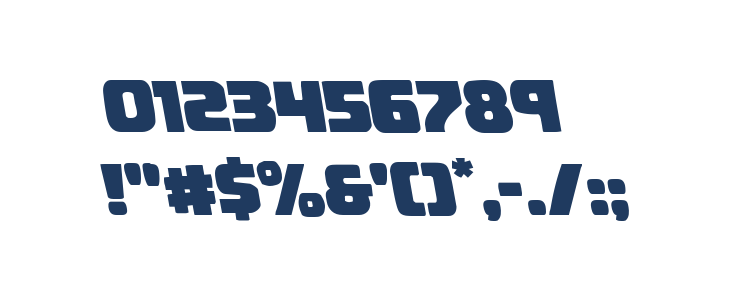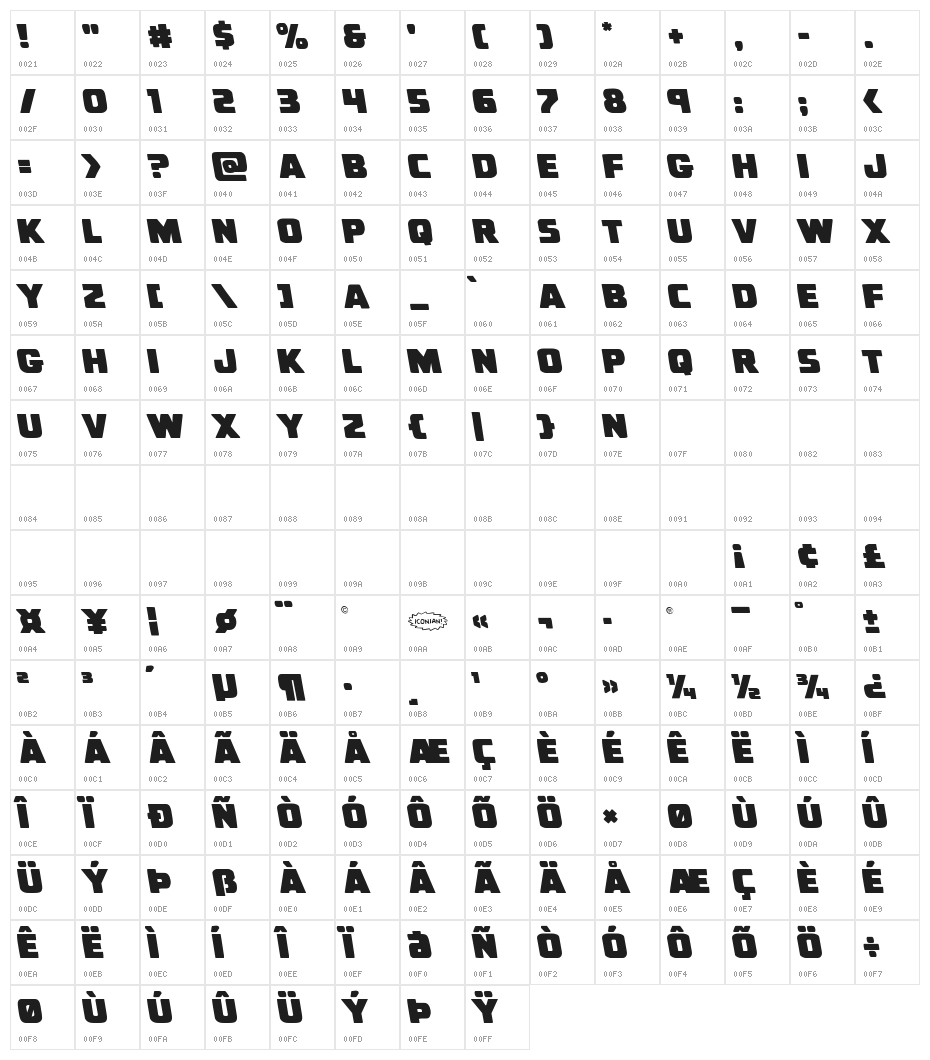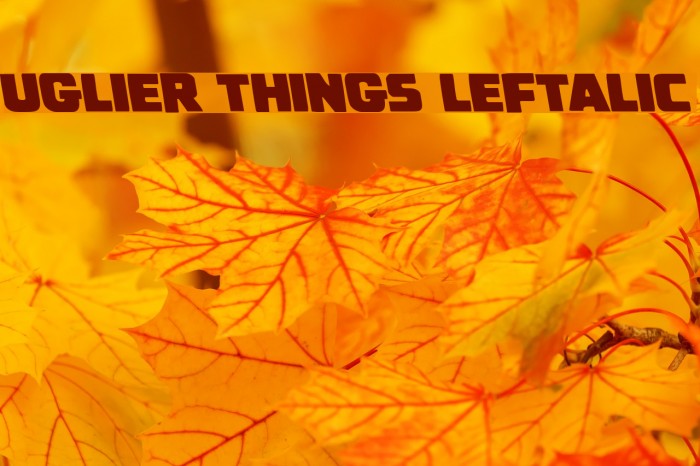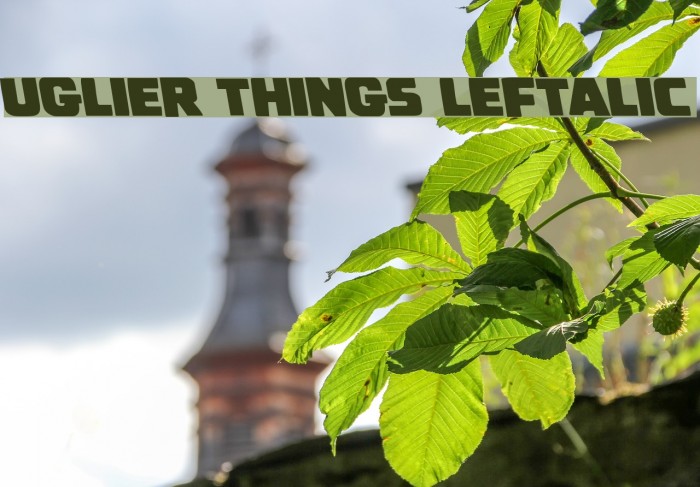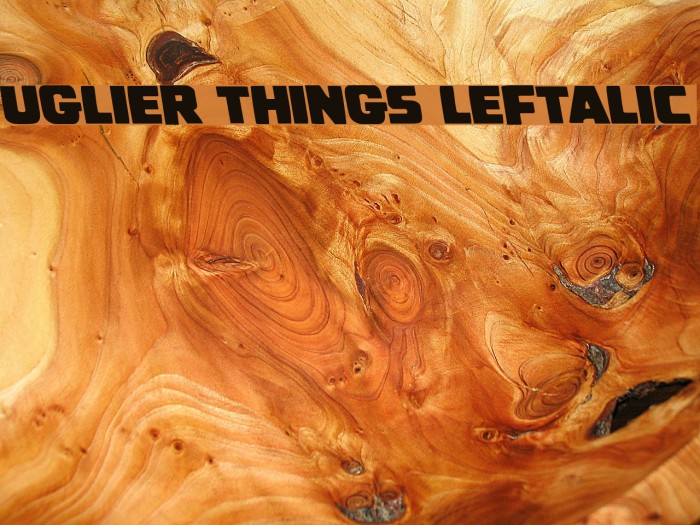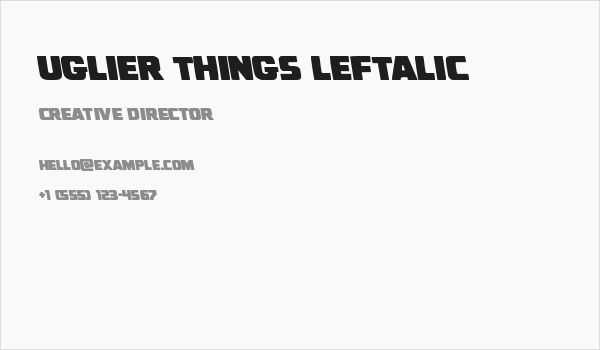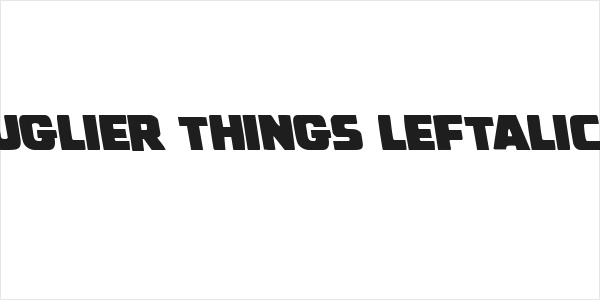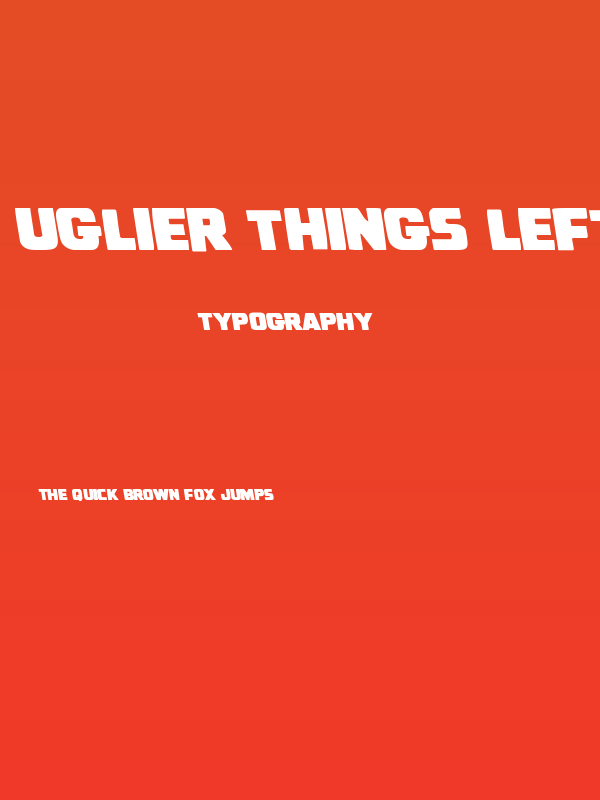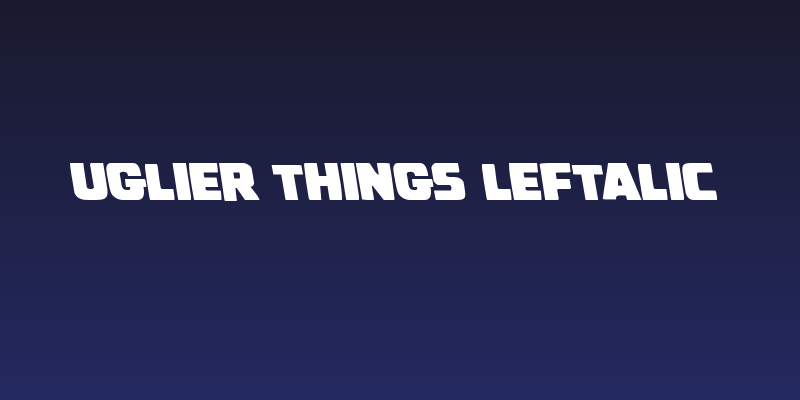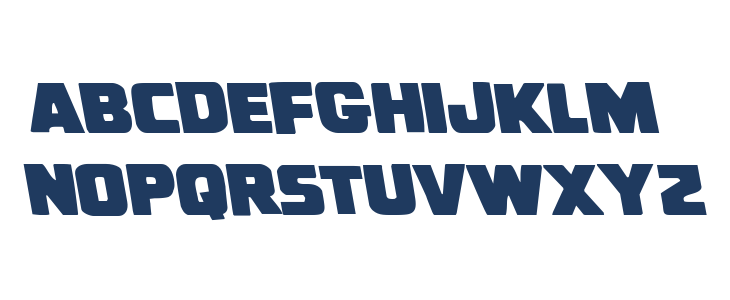
Uglier Things Leftalic Font
Uglier Things Leftalic Description
This bold and dynamic font features thick, blocky characters with a slight leftward slant, giving it a unique and edgy appearance. The uppercase and lowercase letters maintain a consistent weight, creating a strong visual impact. The numbers and special characters are equally bold, ensuring uniformity across all glyphs. The font's design is reminiscent of retro or vintage styles, yet it maintains a modern twist with its clean lines and solid structure. The characters are tightly spaced, enhancing the compact and robust feel of the typeface. This font is ideal for projects that require a bold statement, such as posters, headlines, or branding materials.
| Overall Style | Retro, Modern |
| Proposed Projects | Ideal for posters, headlines, branding, and any project needing a bold statement. |